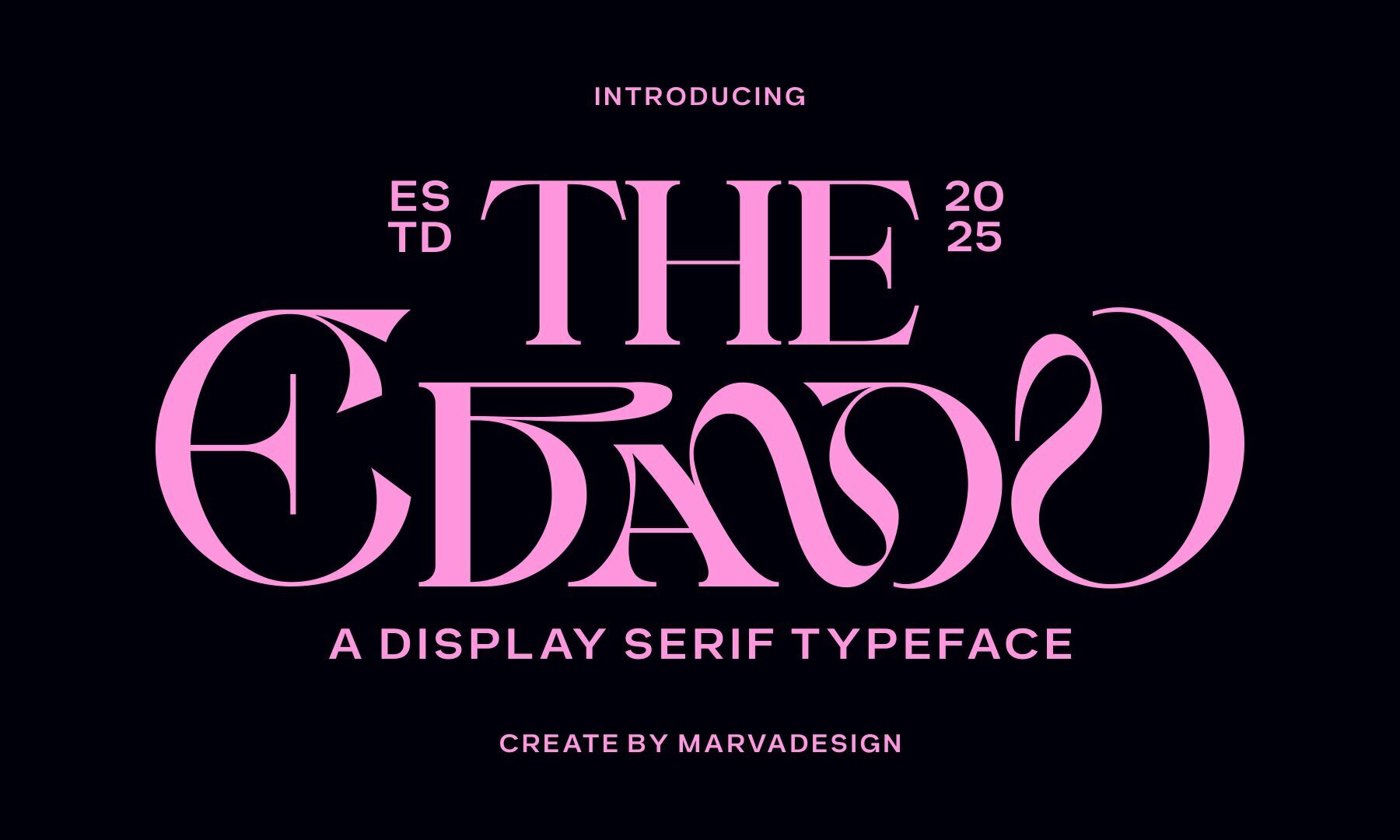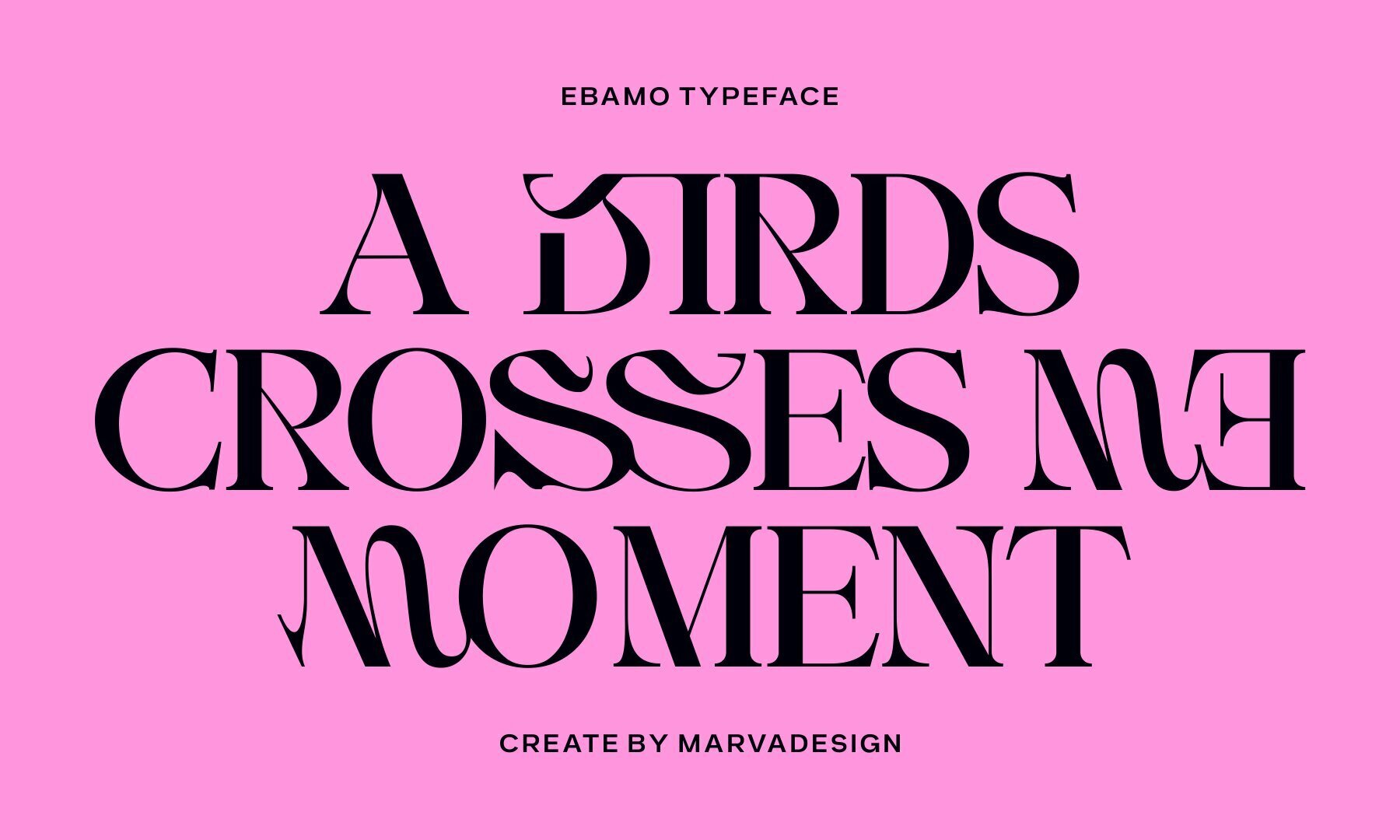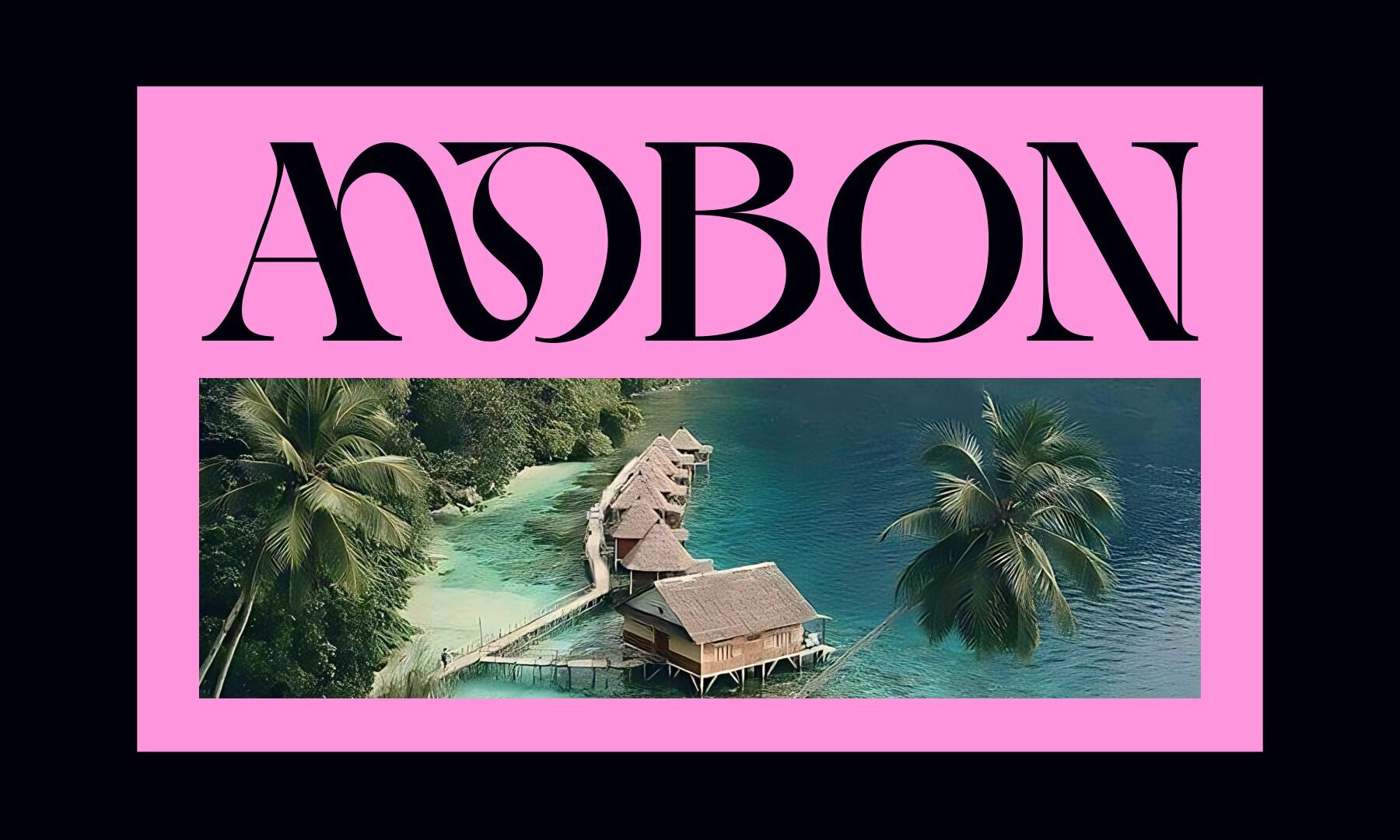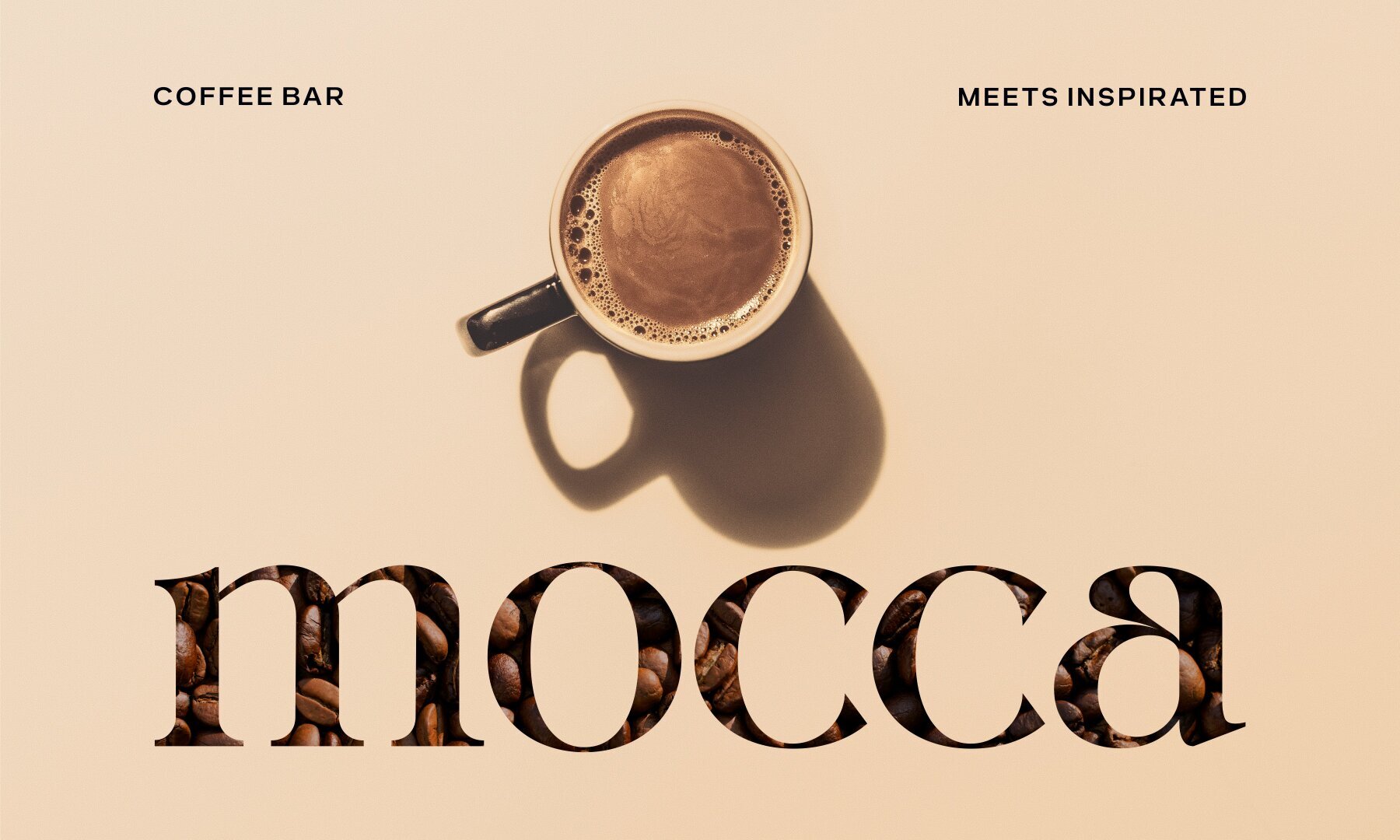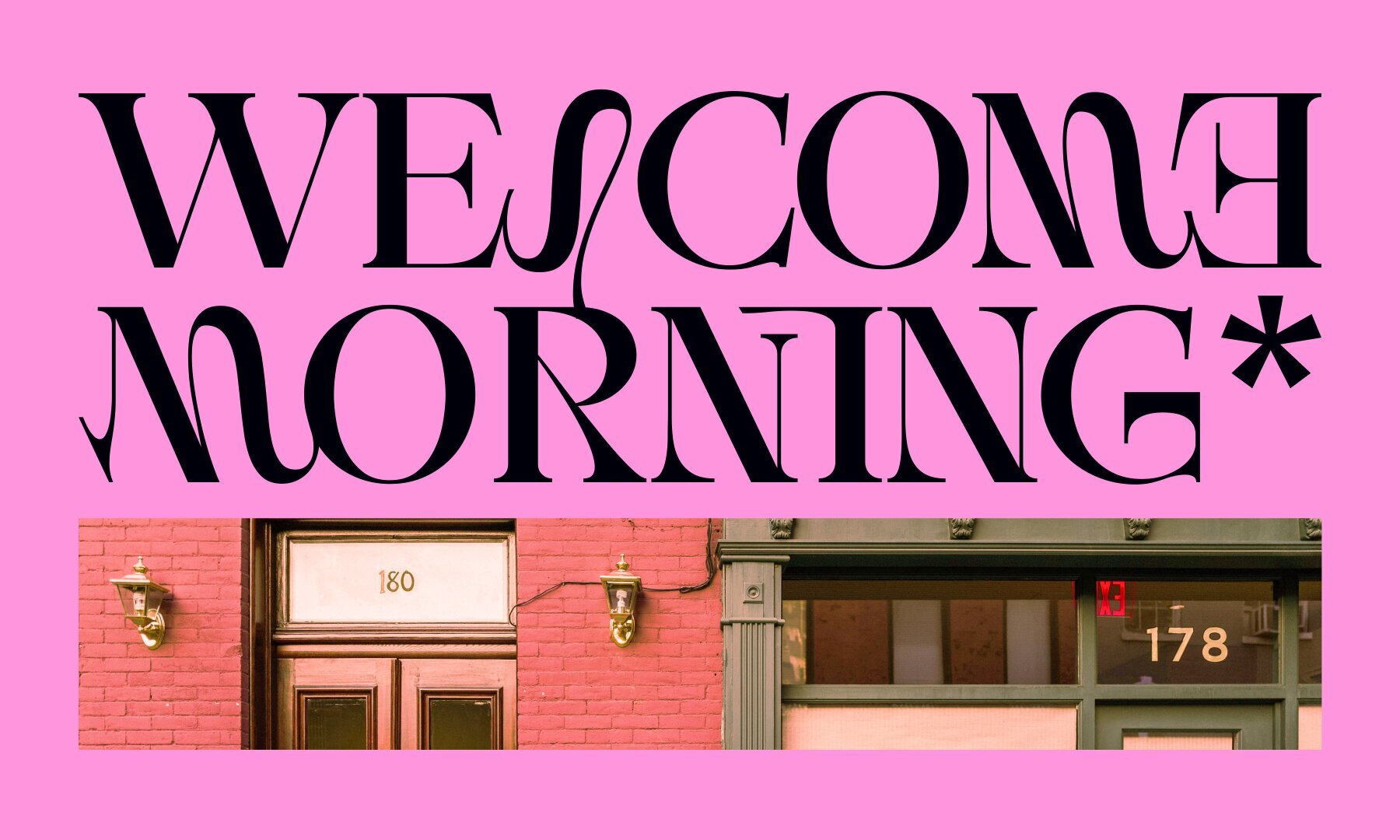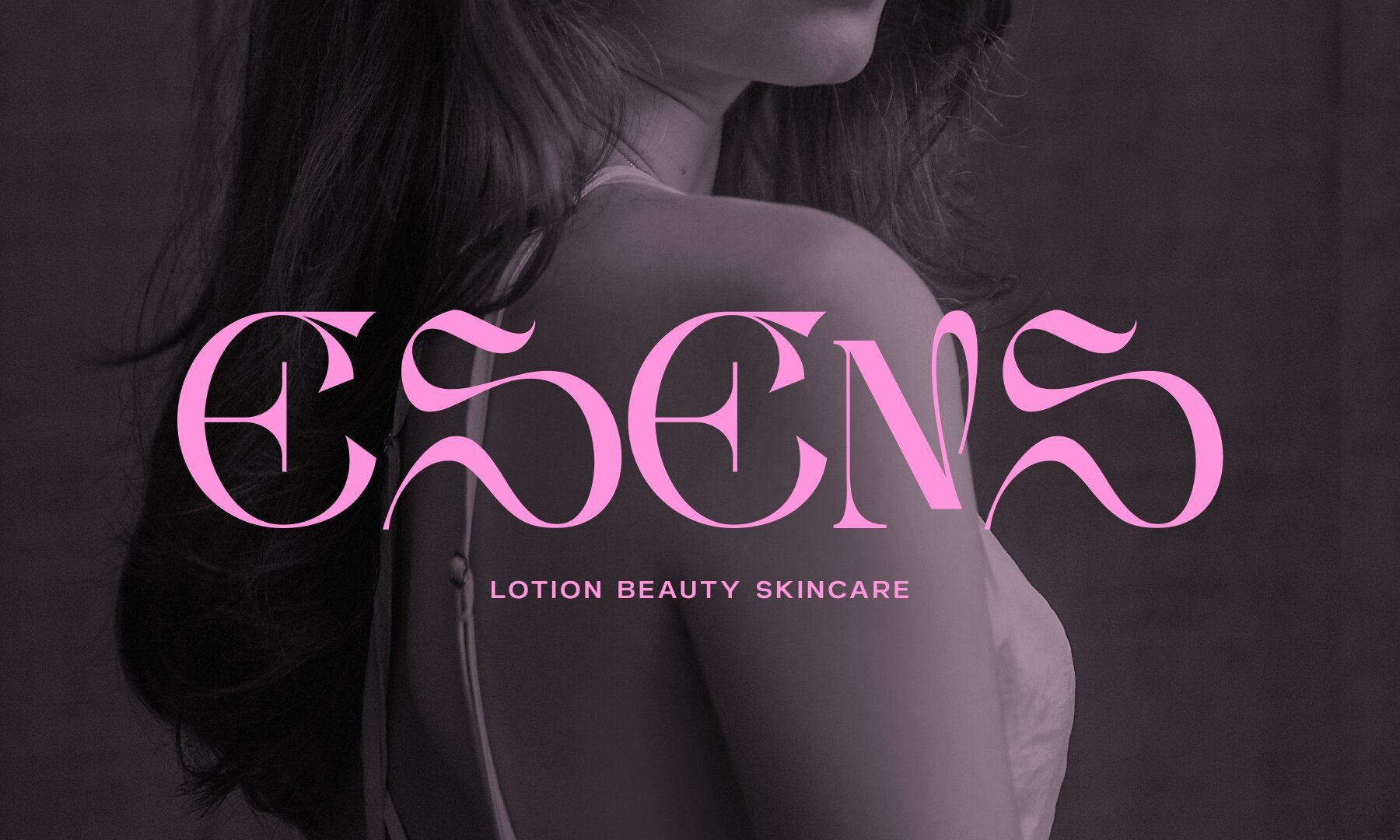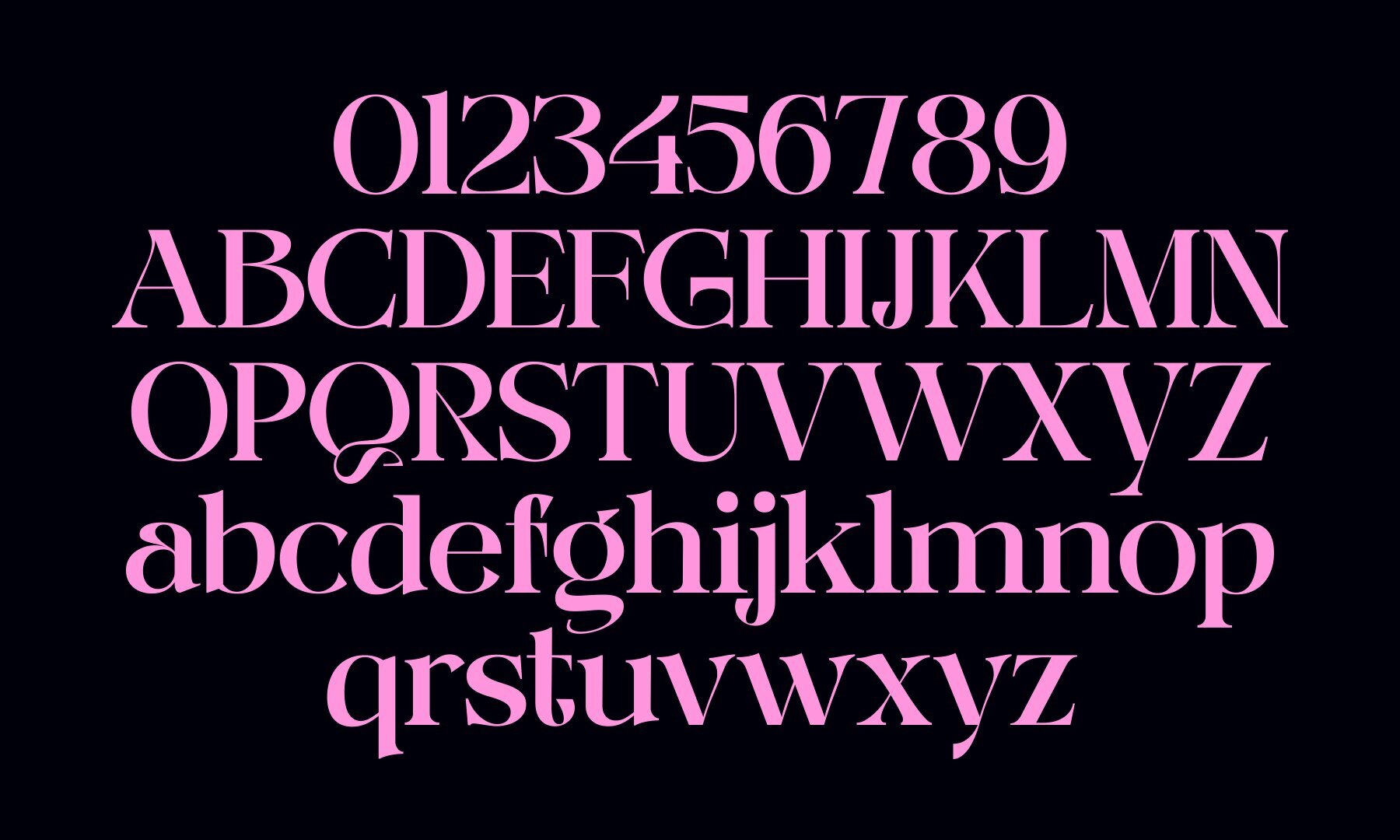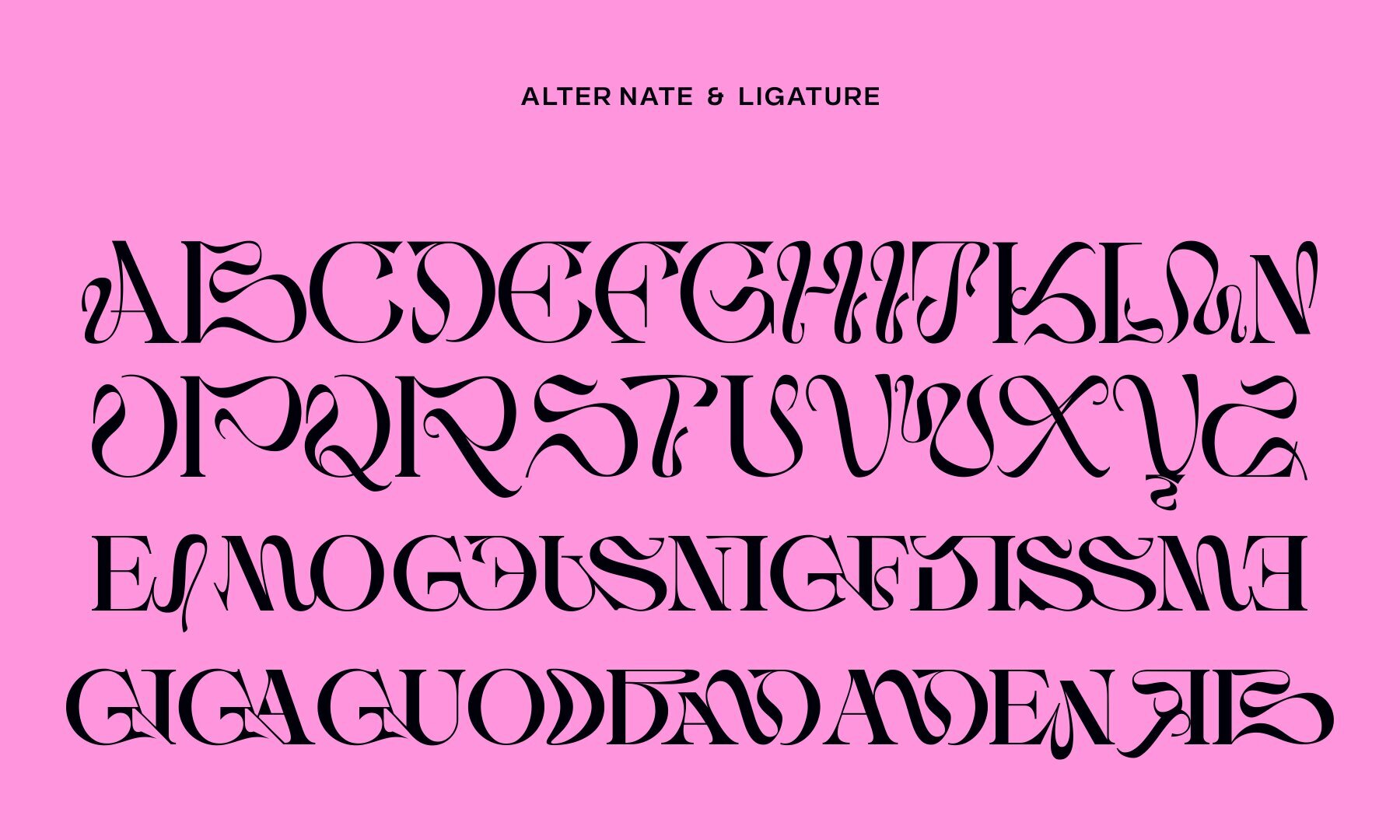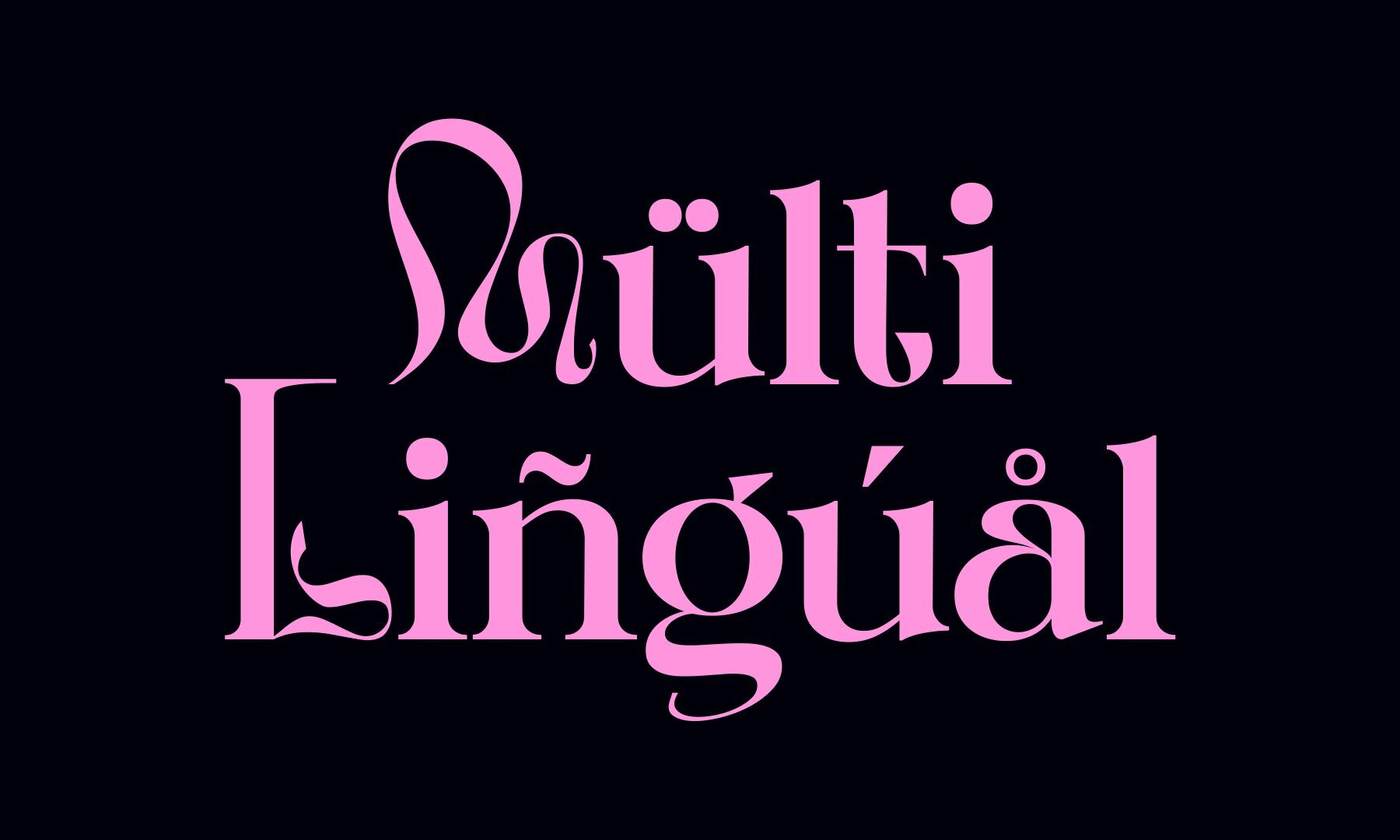
Ebamo Font
Ebamo Regular
Ebamo is a captivating display serif typeface that fuses boldness with an avant-garde aesthetic. With its striking high contrast between thick and thin strokes, this typeface introduces a blend of movement and elegance to any design. The smooth curves complement sharp edges, making Ebamo a memorable choice for various projects. Ideal for sophisticated branding, fashion editorials, and modern design, Ebamo embodies luxury and innovation in every detail.Ebamo: An Avant-Garde Display Serif with Impact